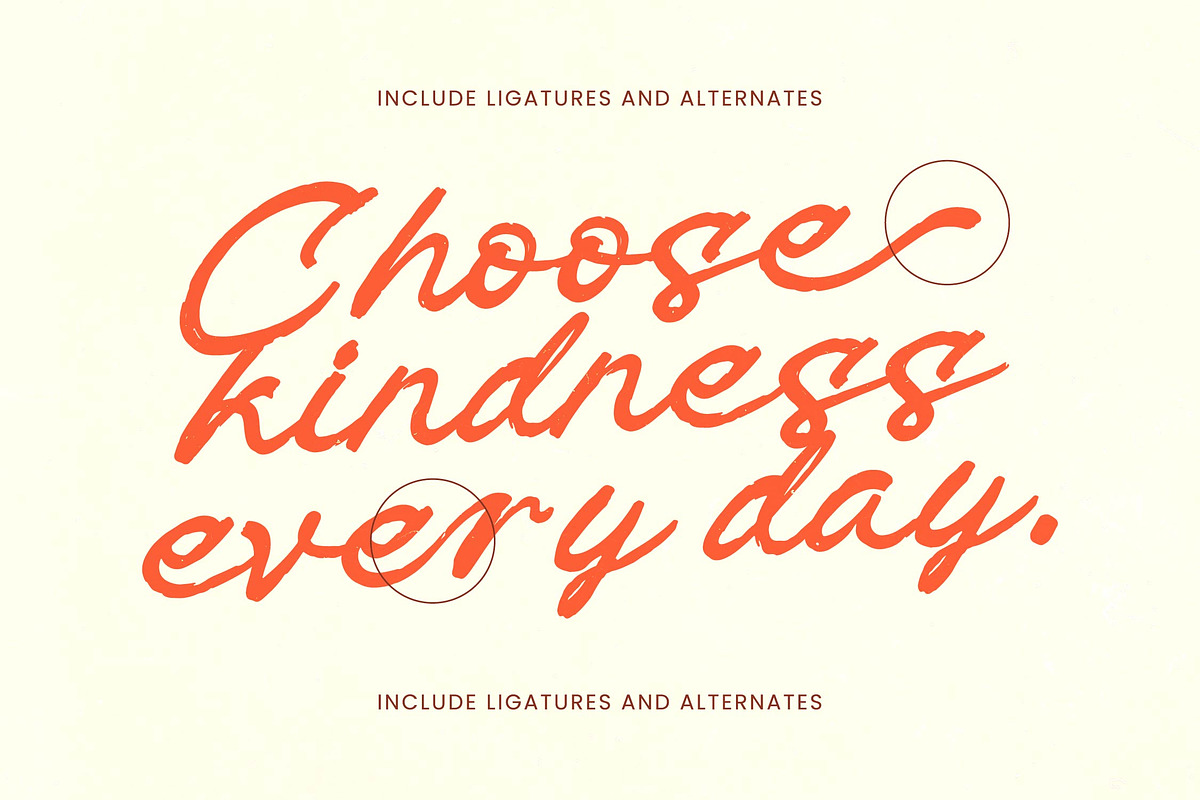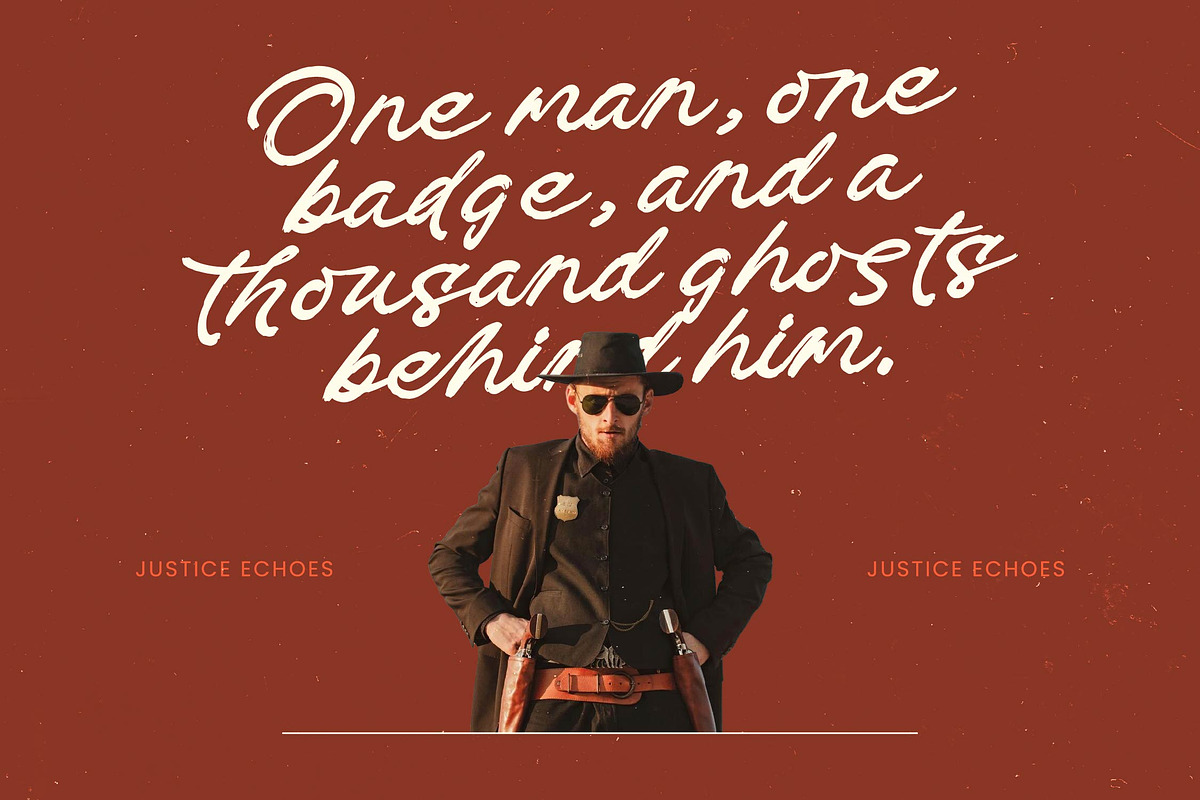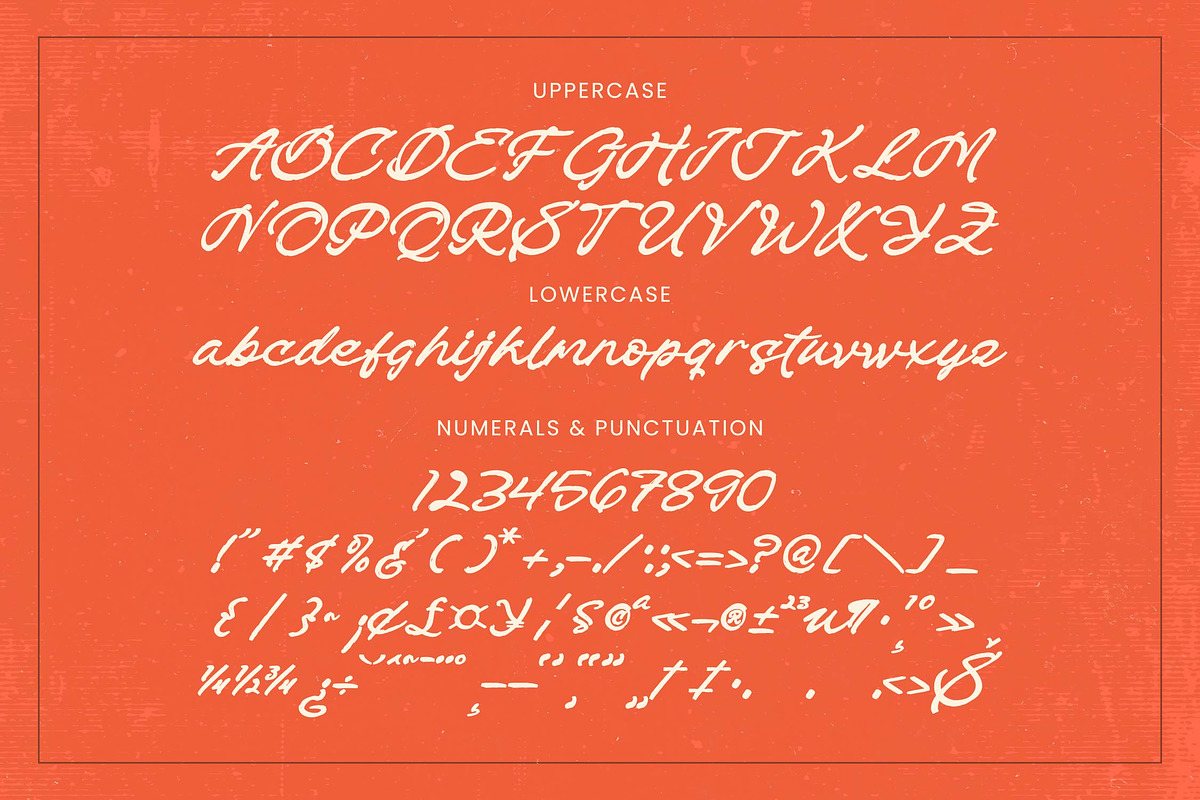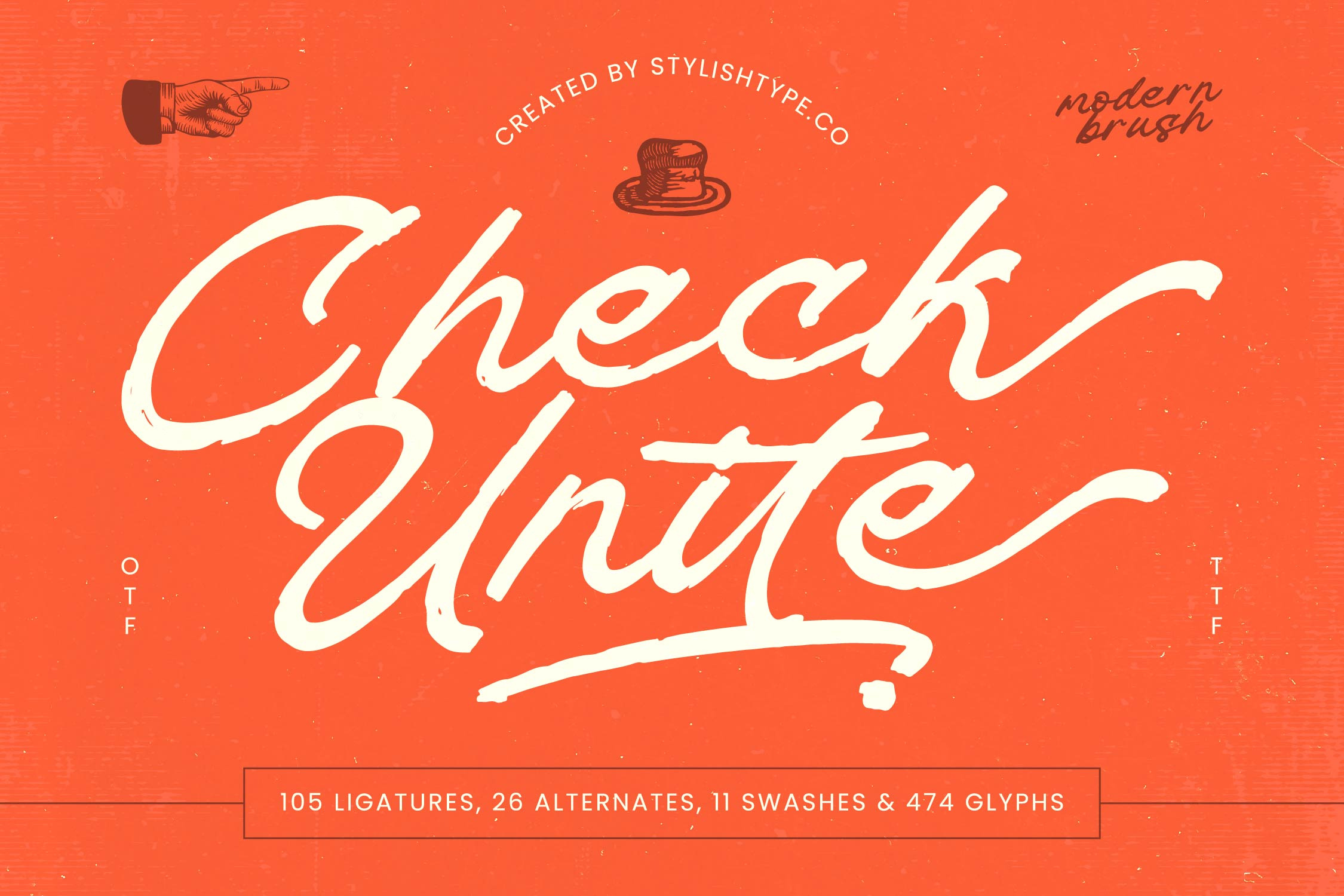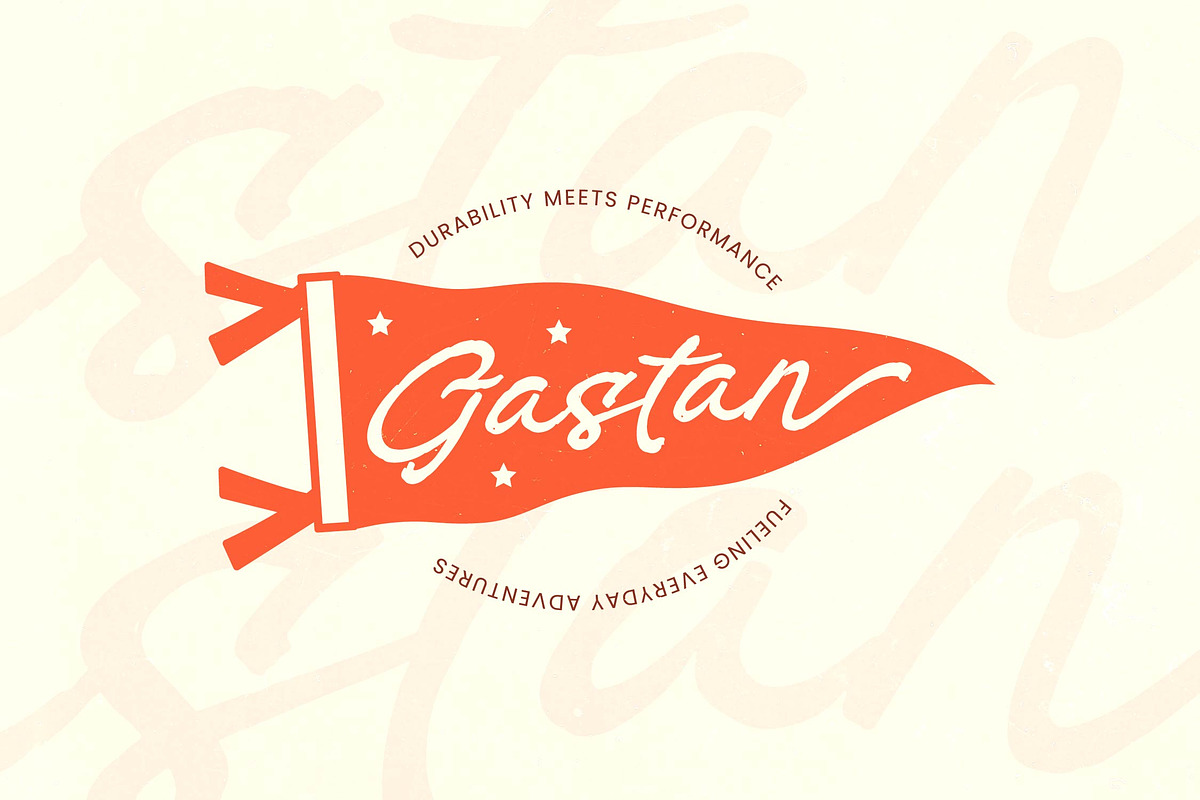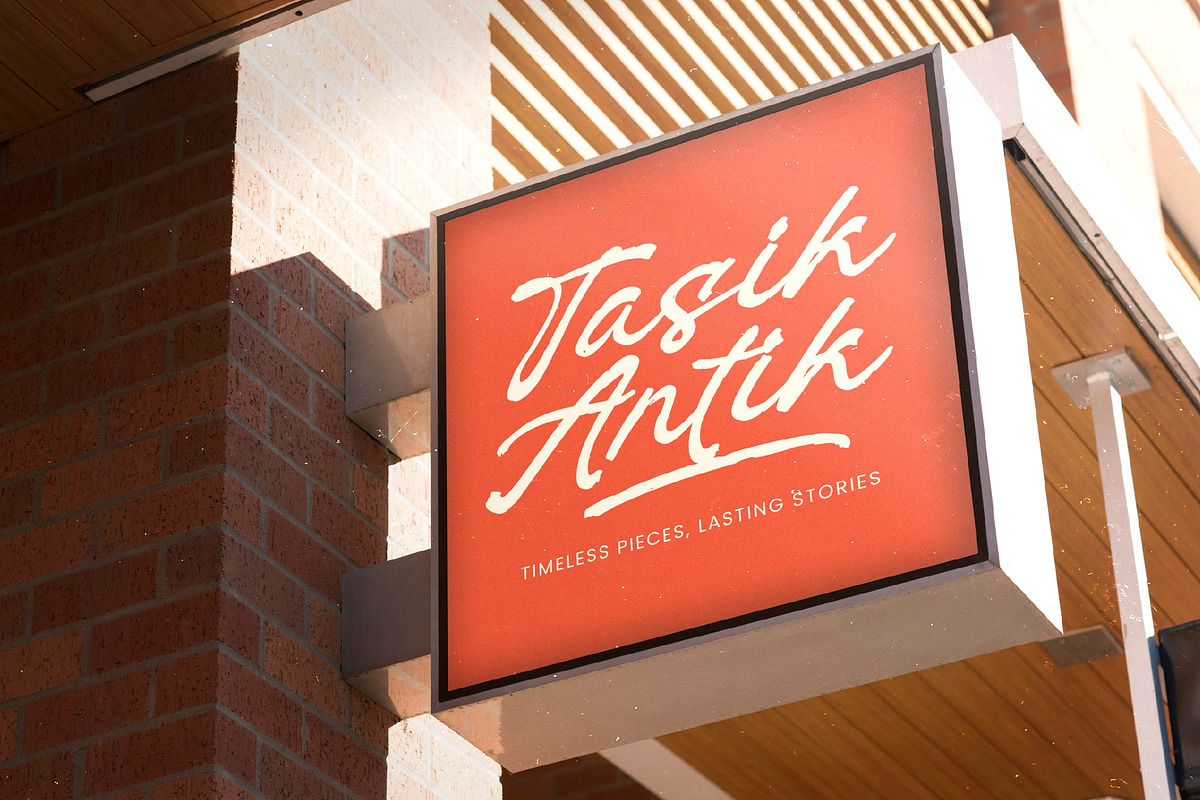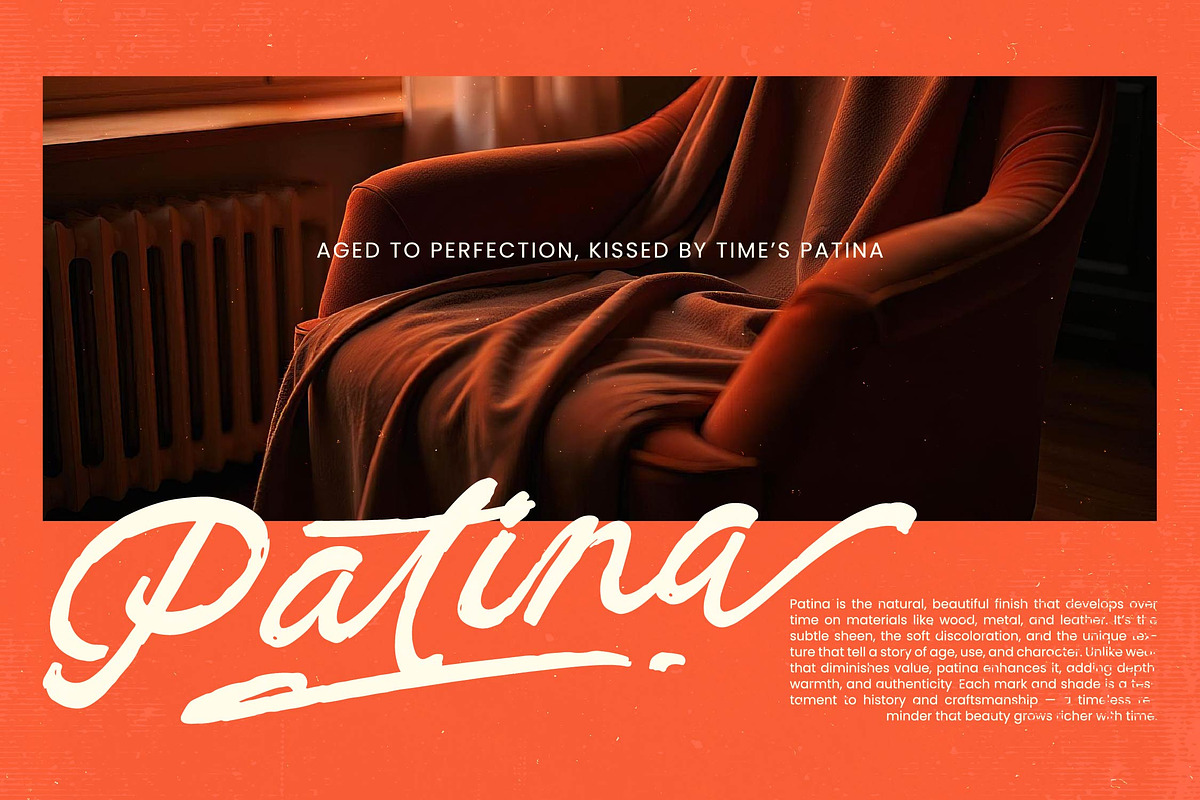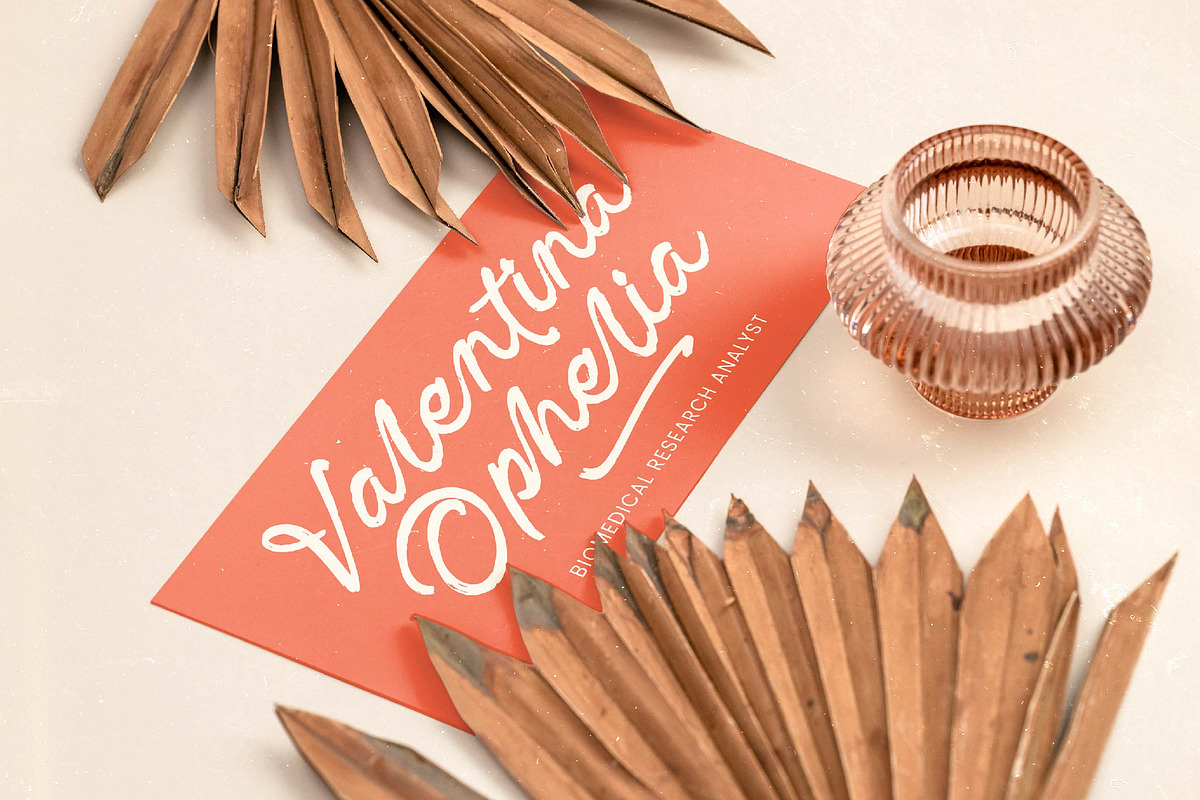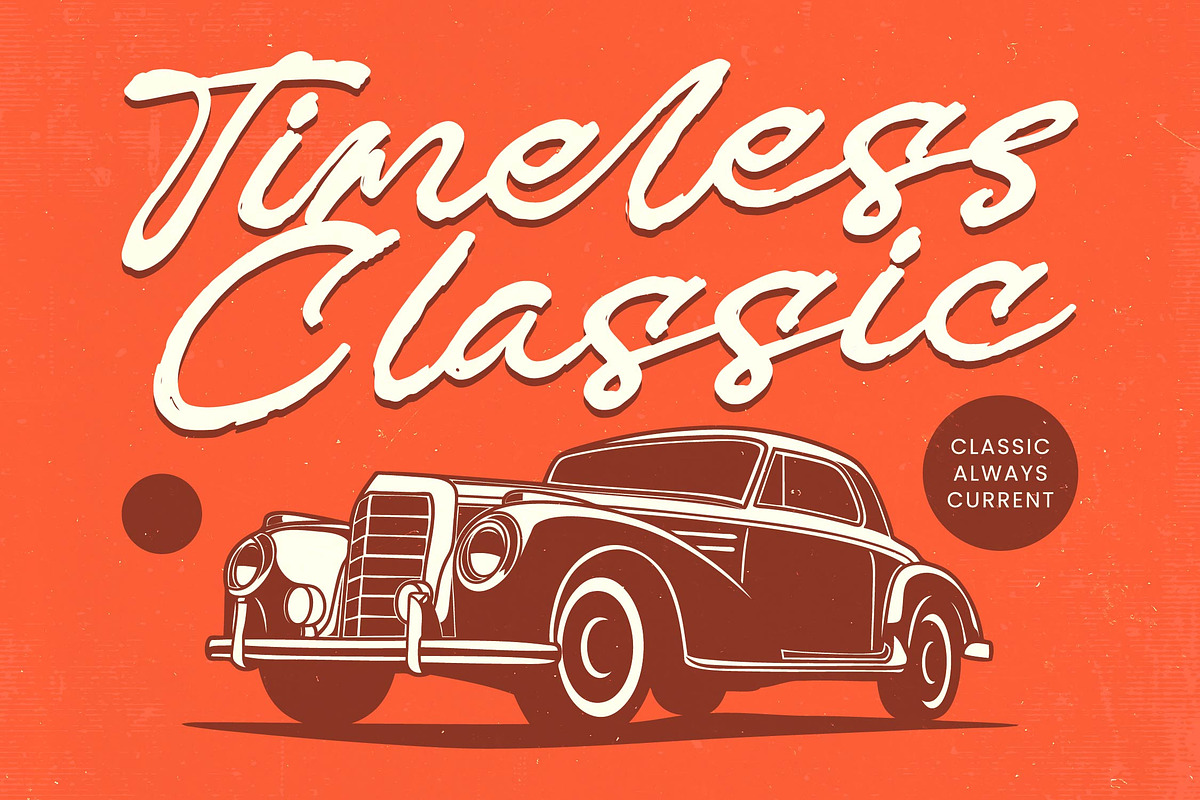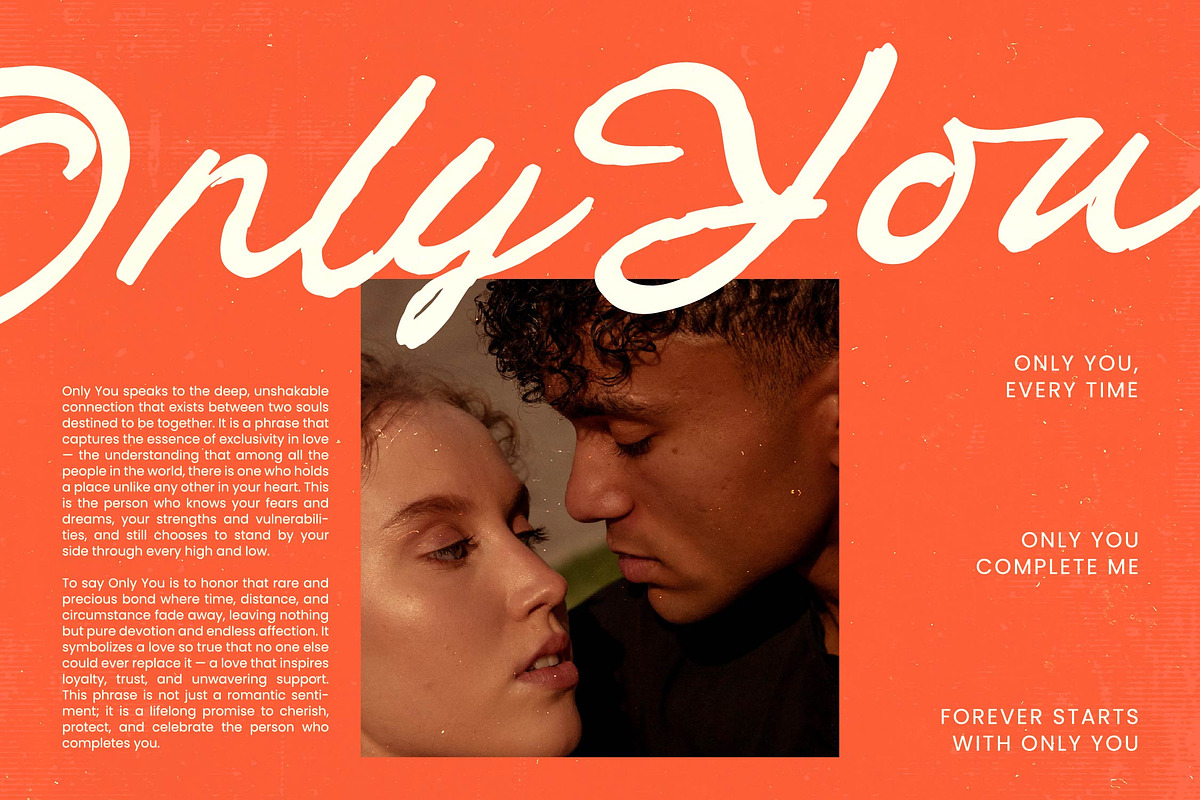
Check Unite Modern Brush Font
Check Unite - Modern Brush Font , from Stylishtype , Suitable for any projects such as: logos, branding projects, homeware designs, product packaging, mugs, quotes, posters, shopping bags, t-shirts, book covers, name card, invitation cards, greeting cards, label, photography, watermark, special events, and all your other luxury and beautiful projects that need a Luxury Script taste.
- 105 Ligature 26 Alternates & 11 Swashes